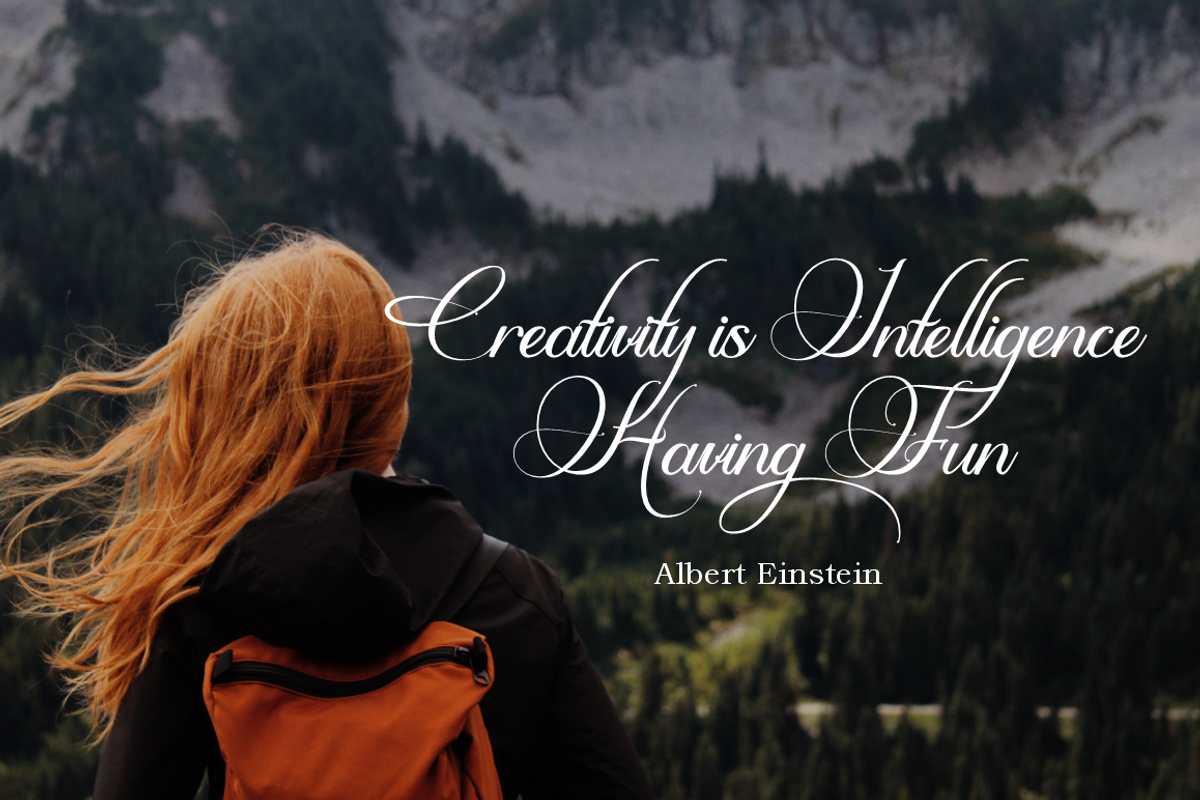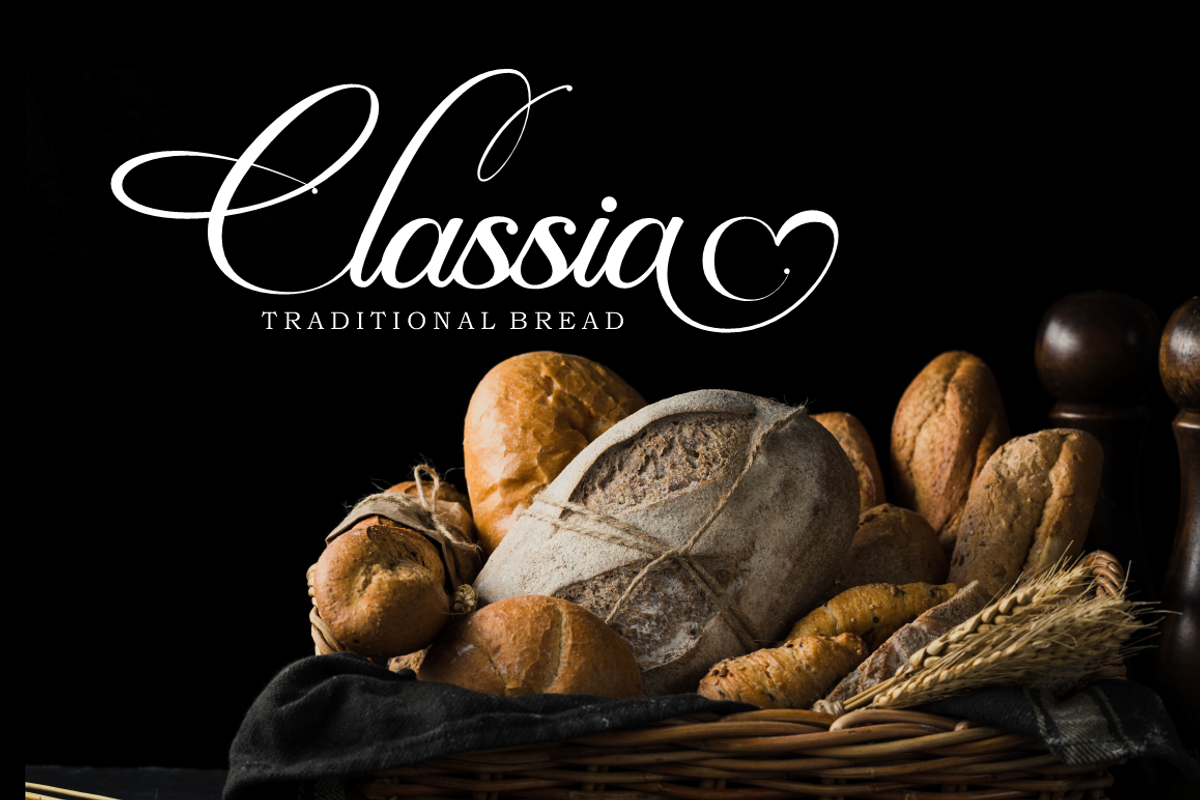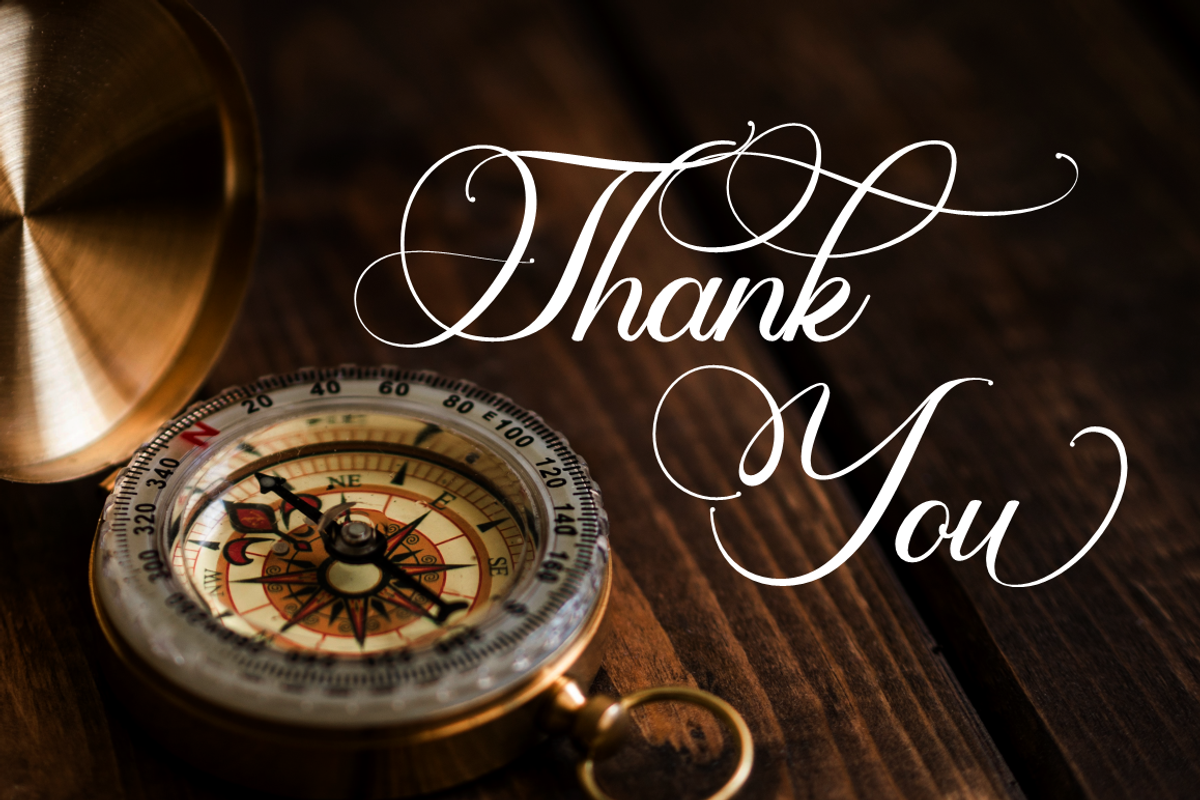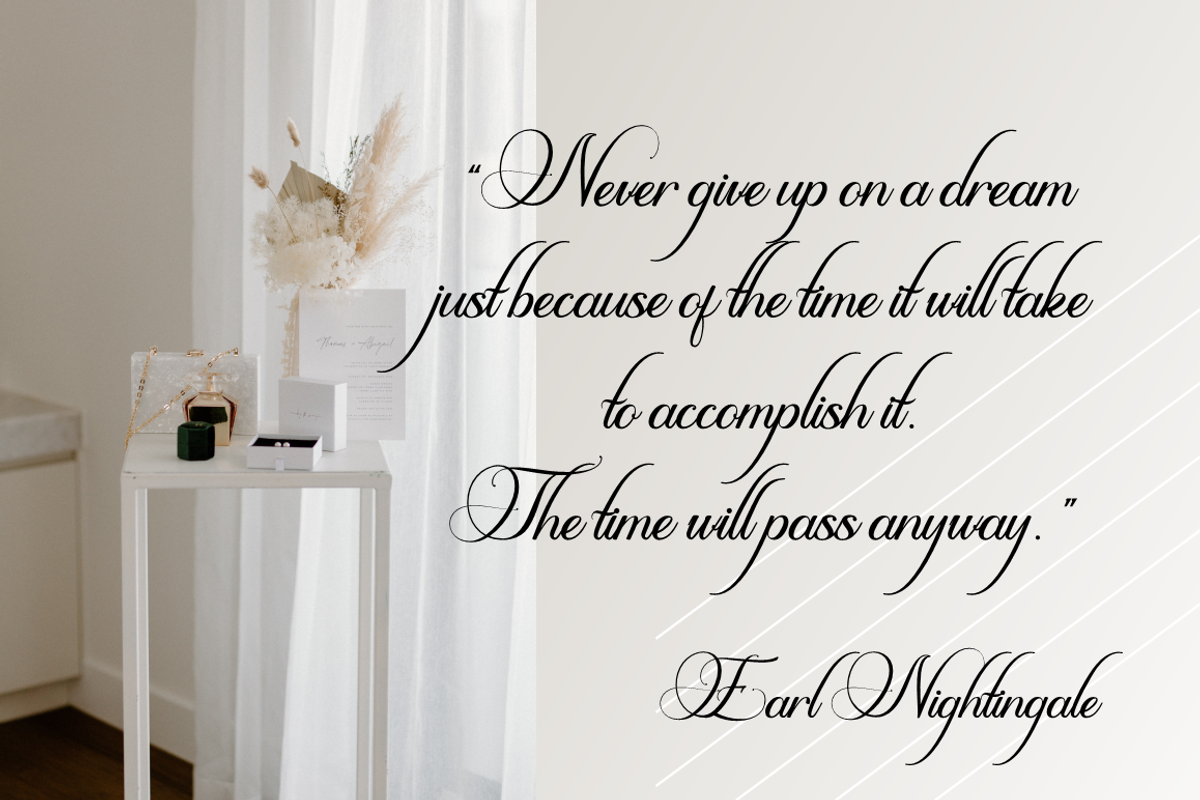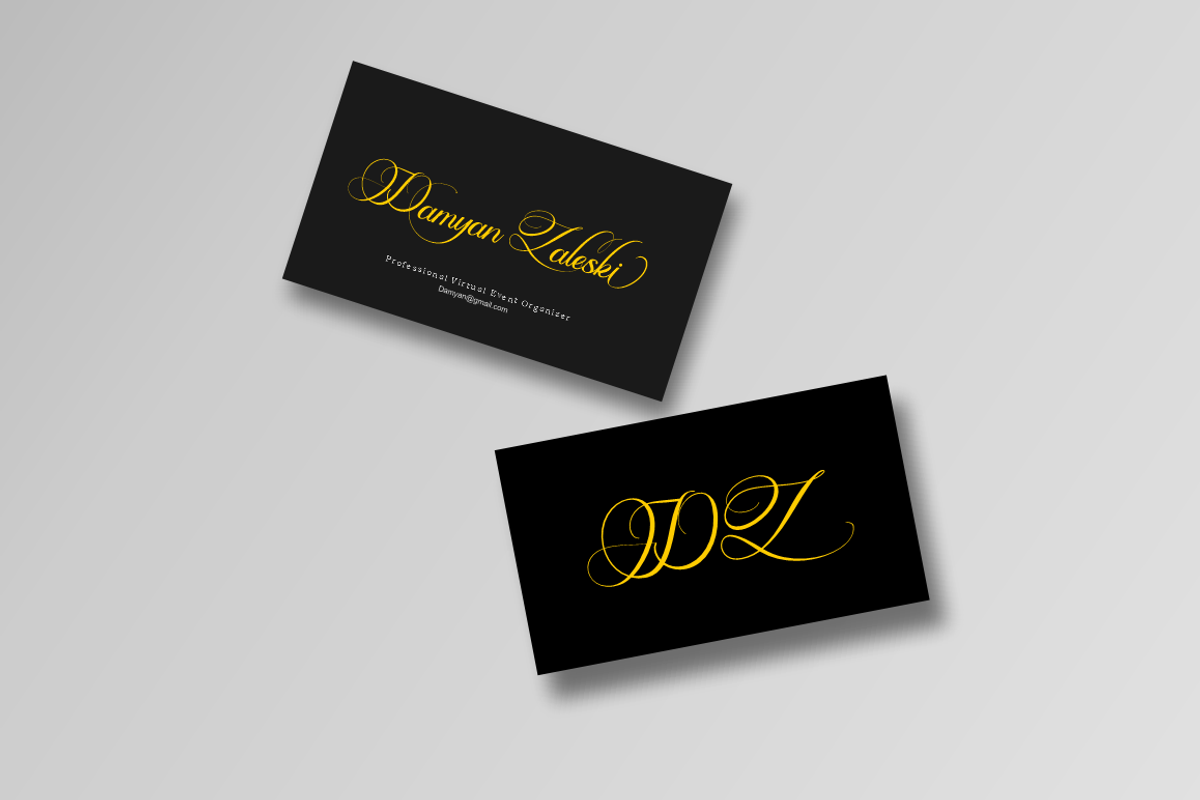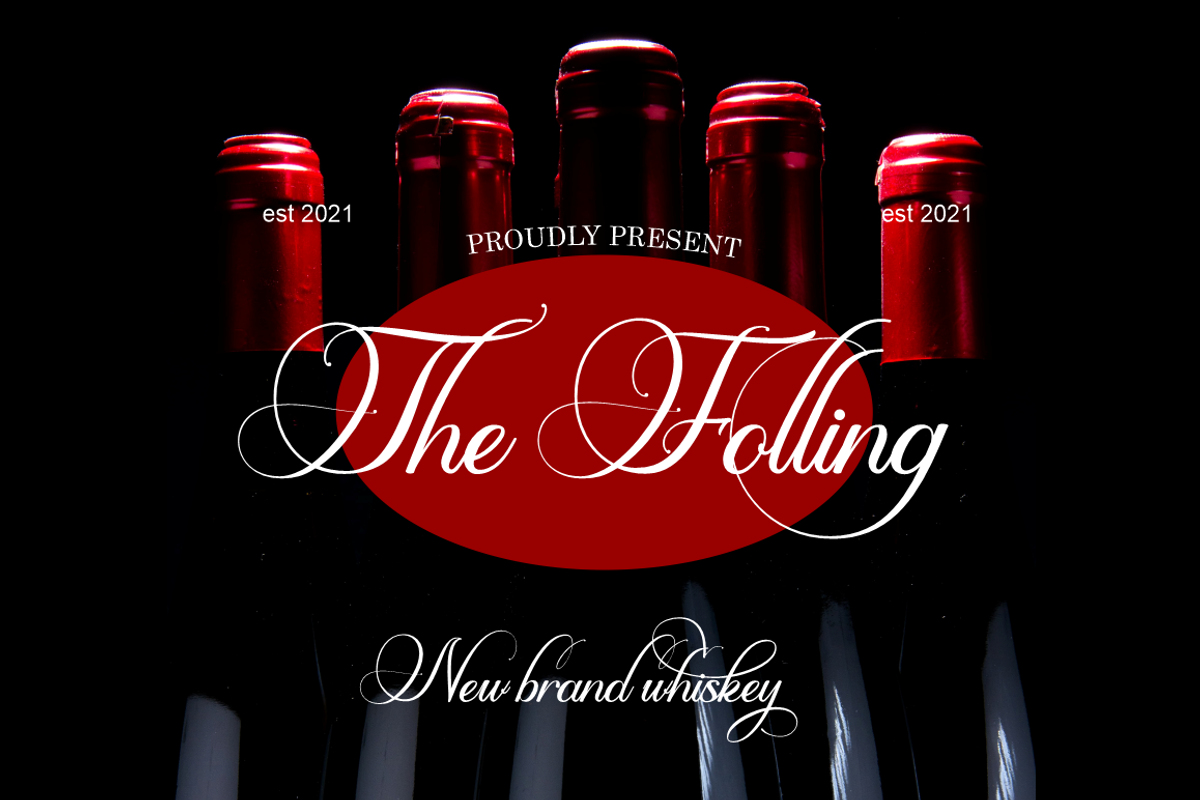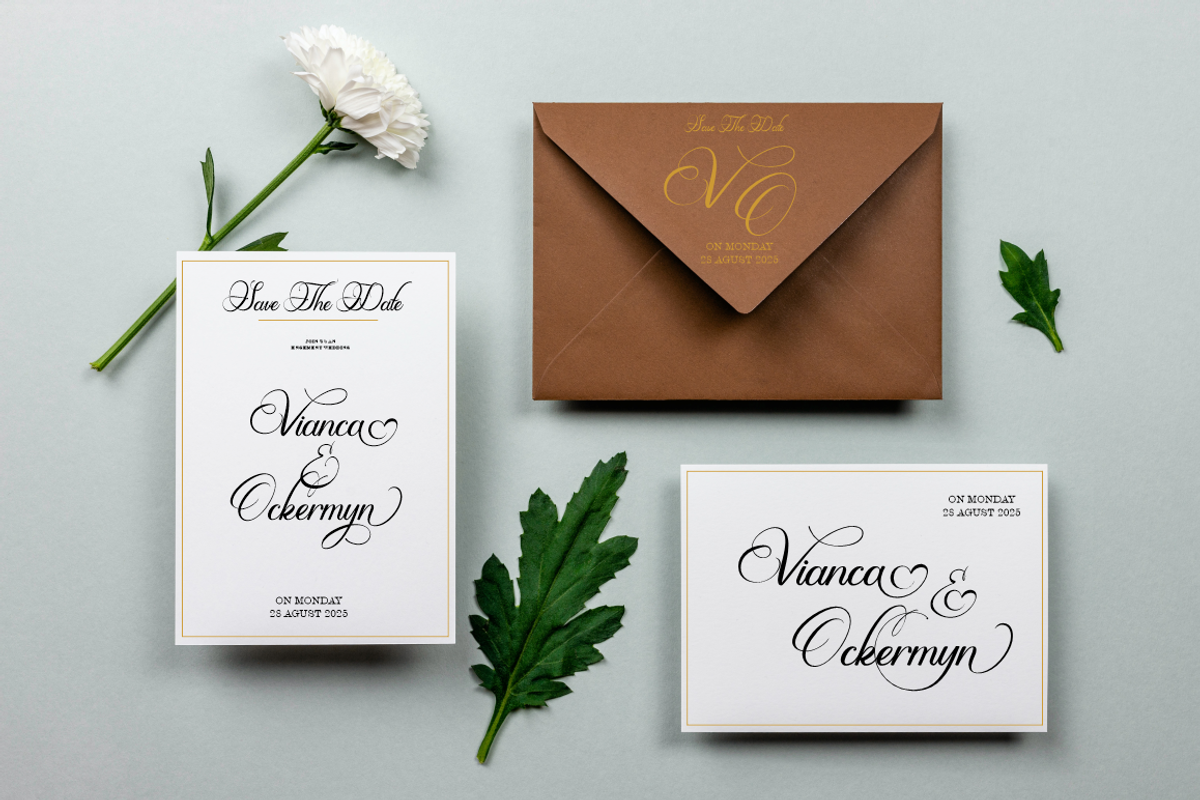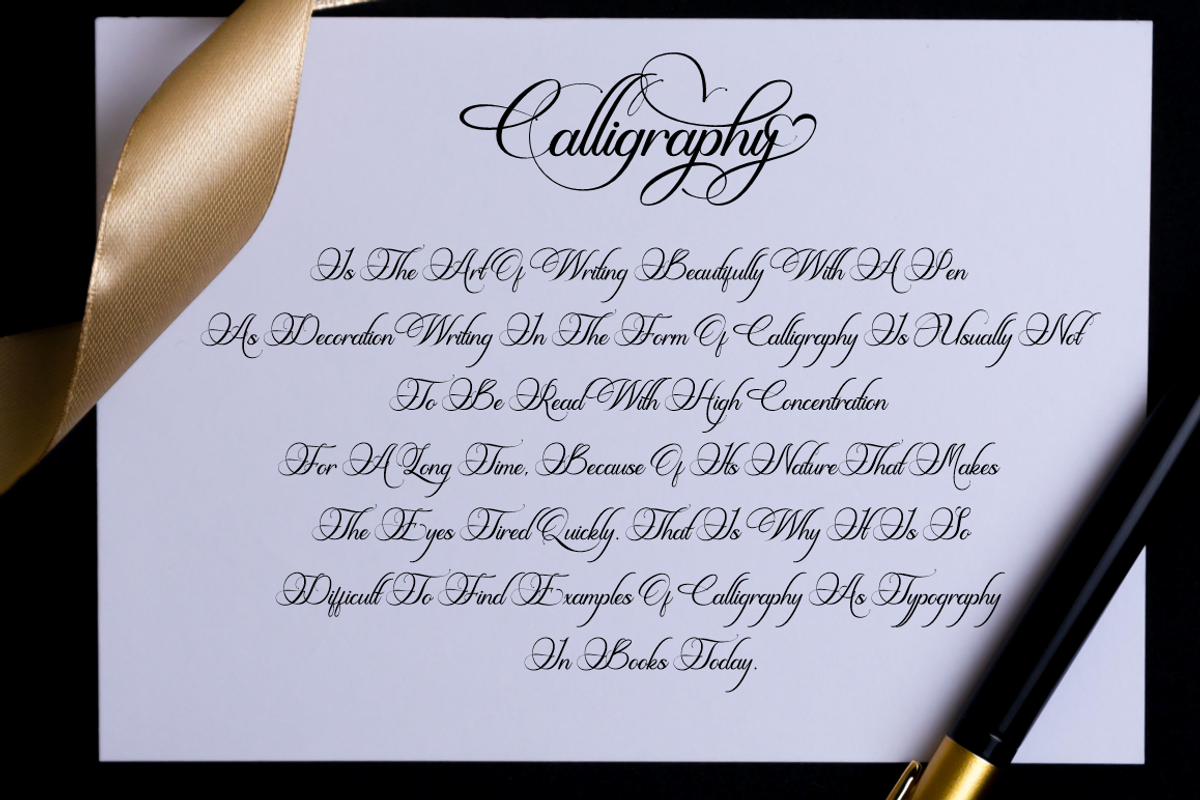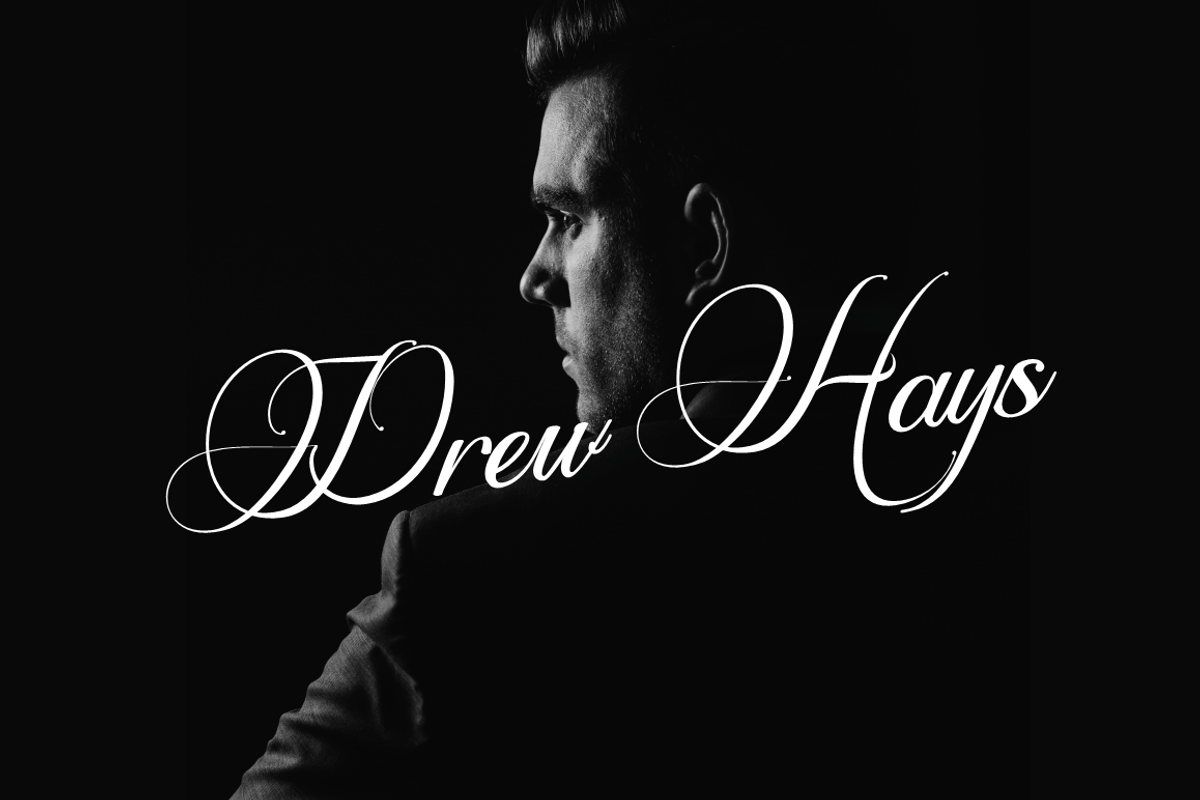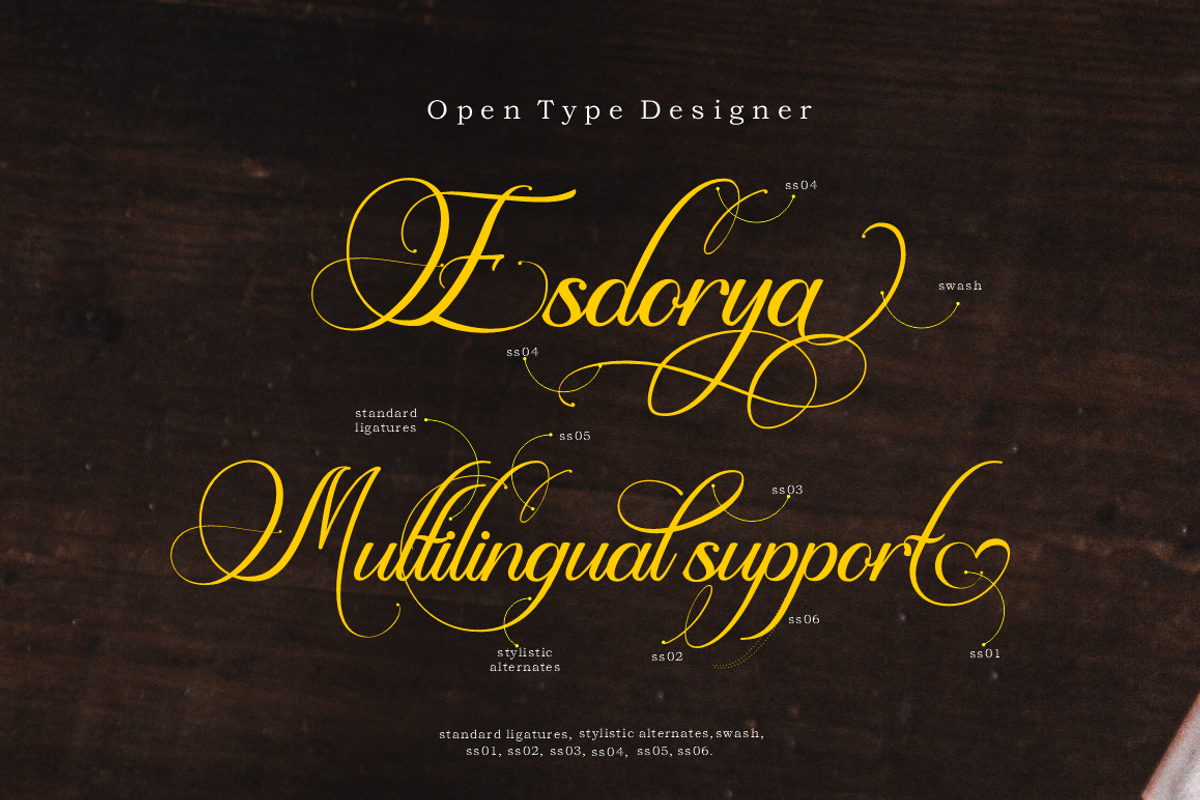
Esdoria Journey
Esdoria Journey is Beautiful script font with many alternative shapes for each letter. elegant and modern fonts. very suitable for business cards, invitations, logos etc